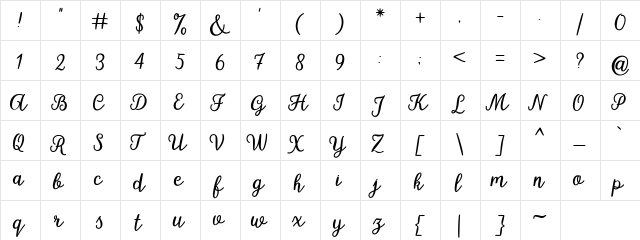
hillania font Regular
| Foundry | Barland Design |
| Designer | Yulinda |
Design Context for hillania font Typeface
hillania font takes a measured approach to typography — its balanced proportions and neutral character make it a reliable workhorse for both digital and print work.